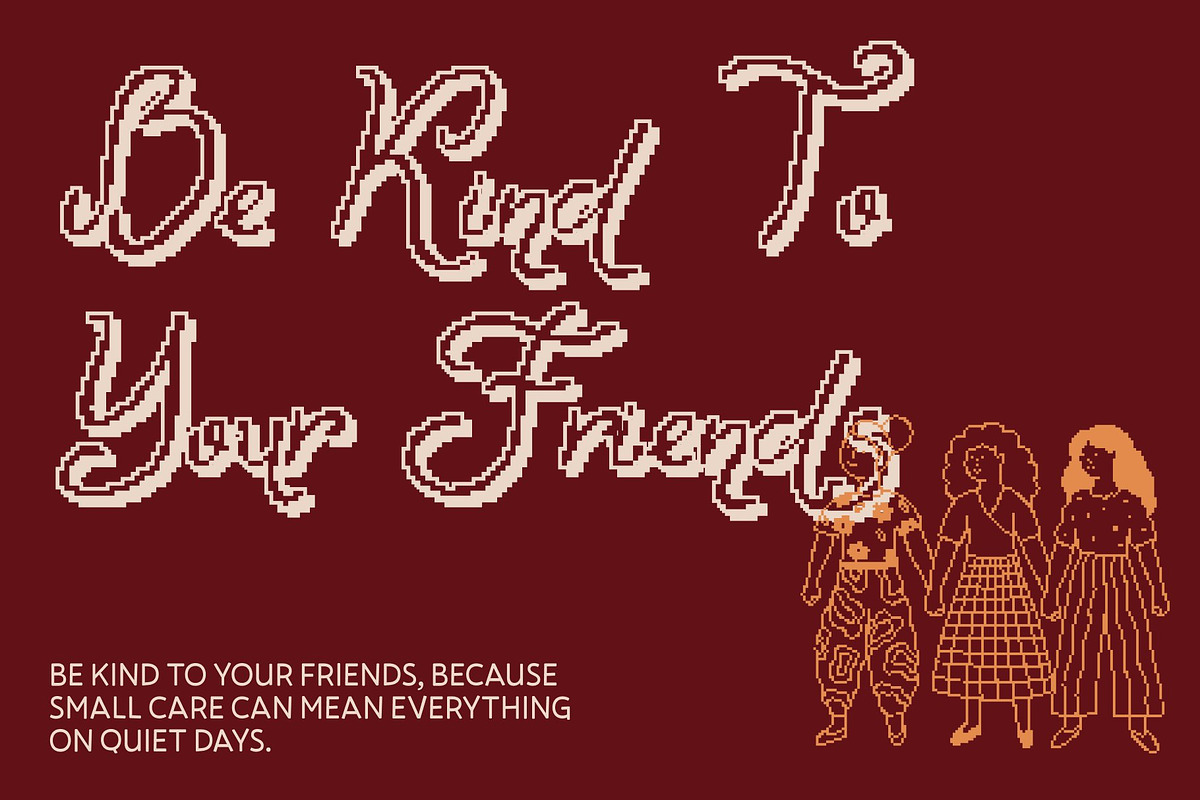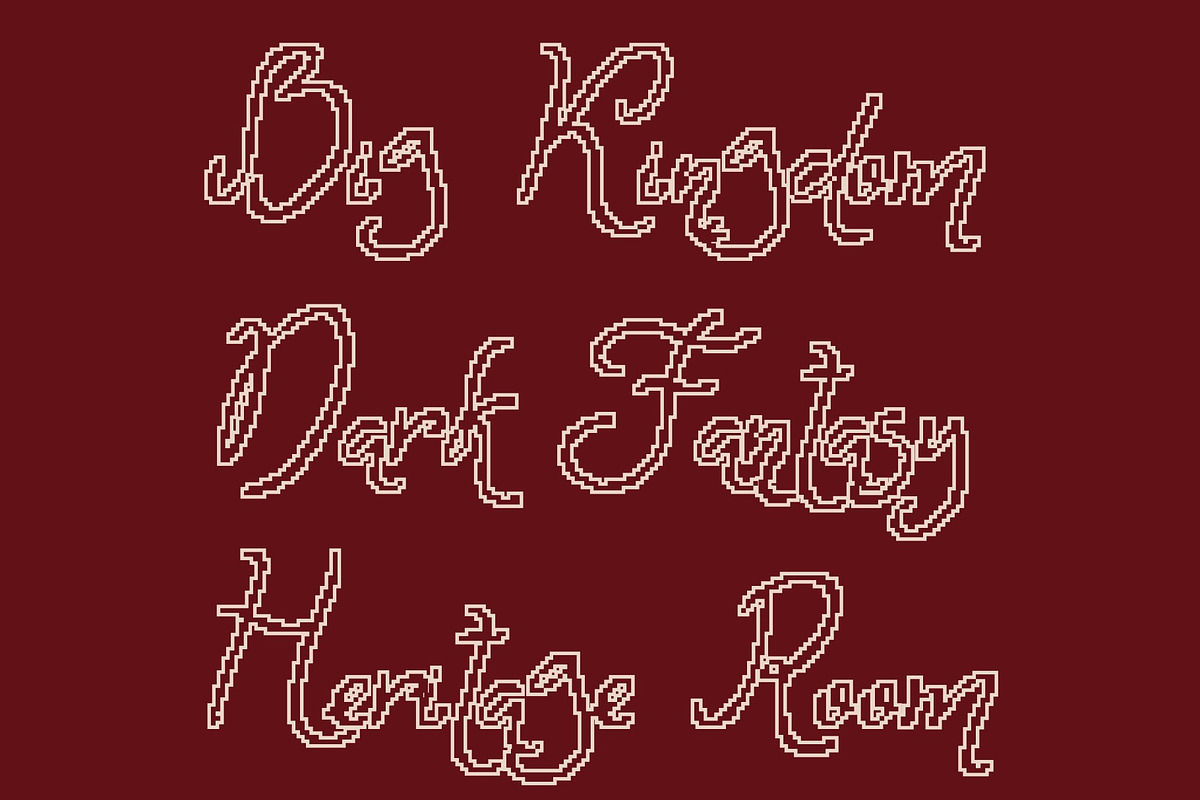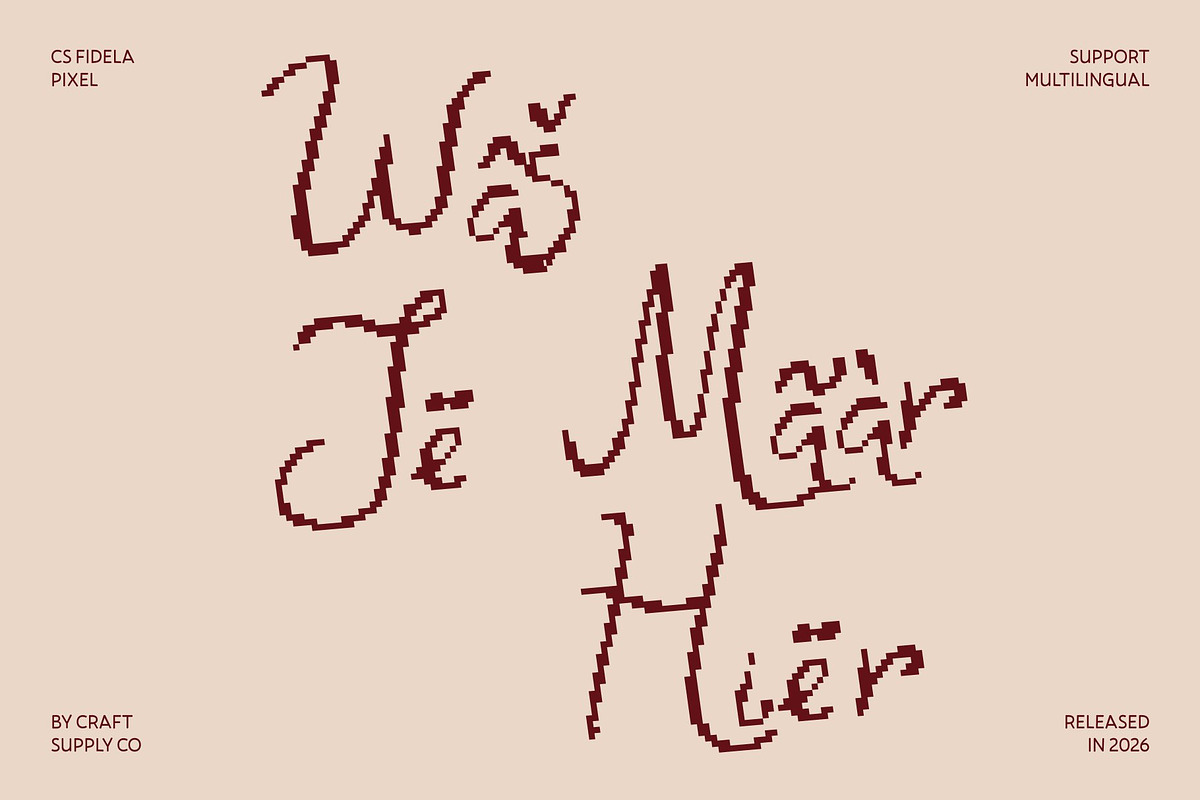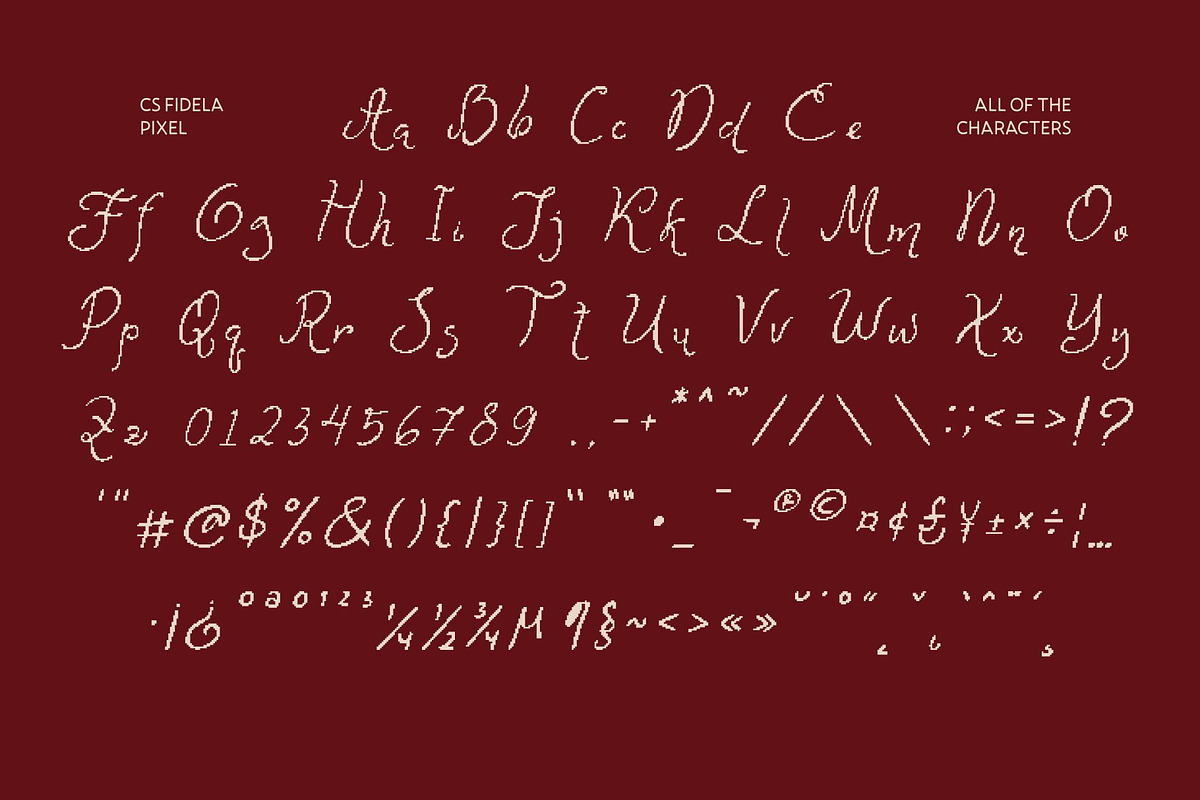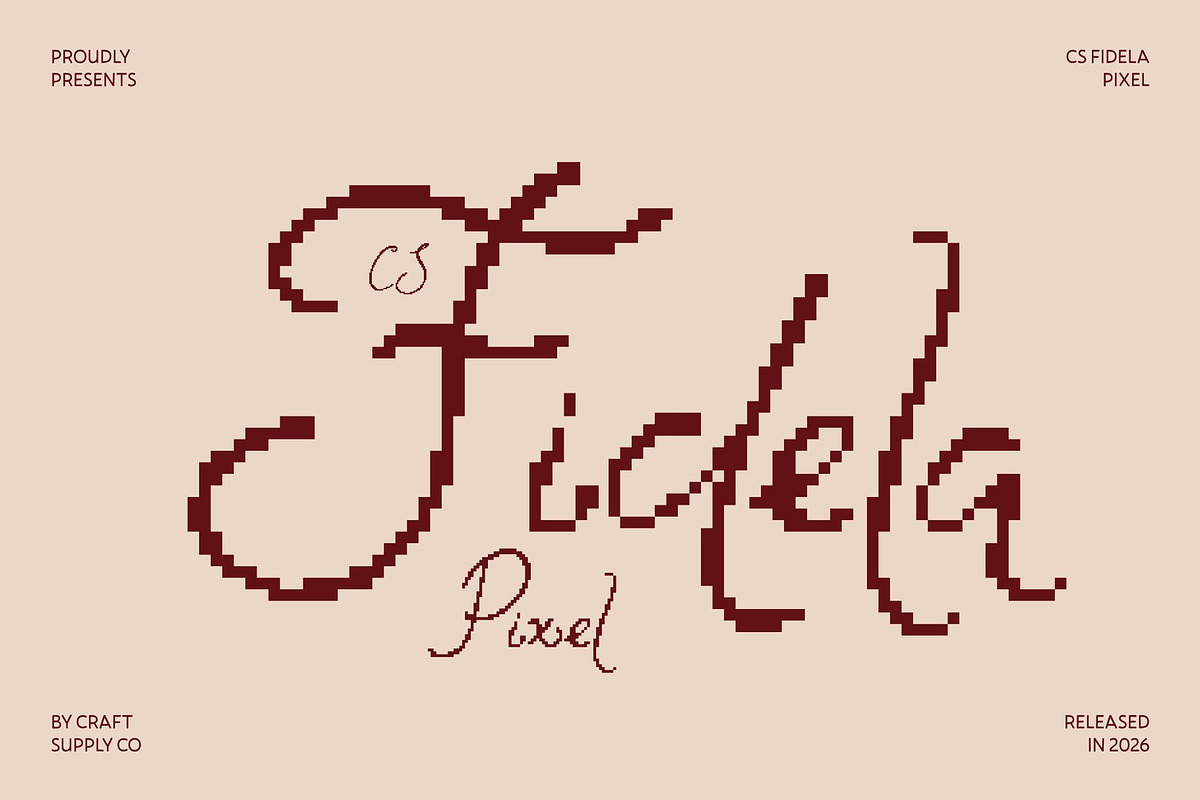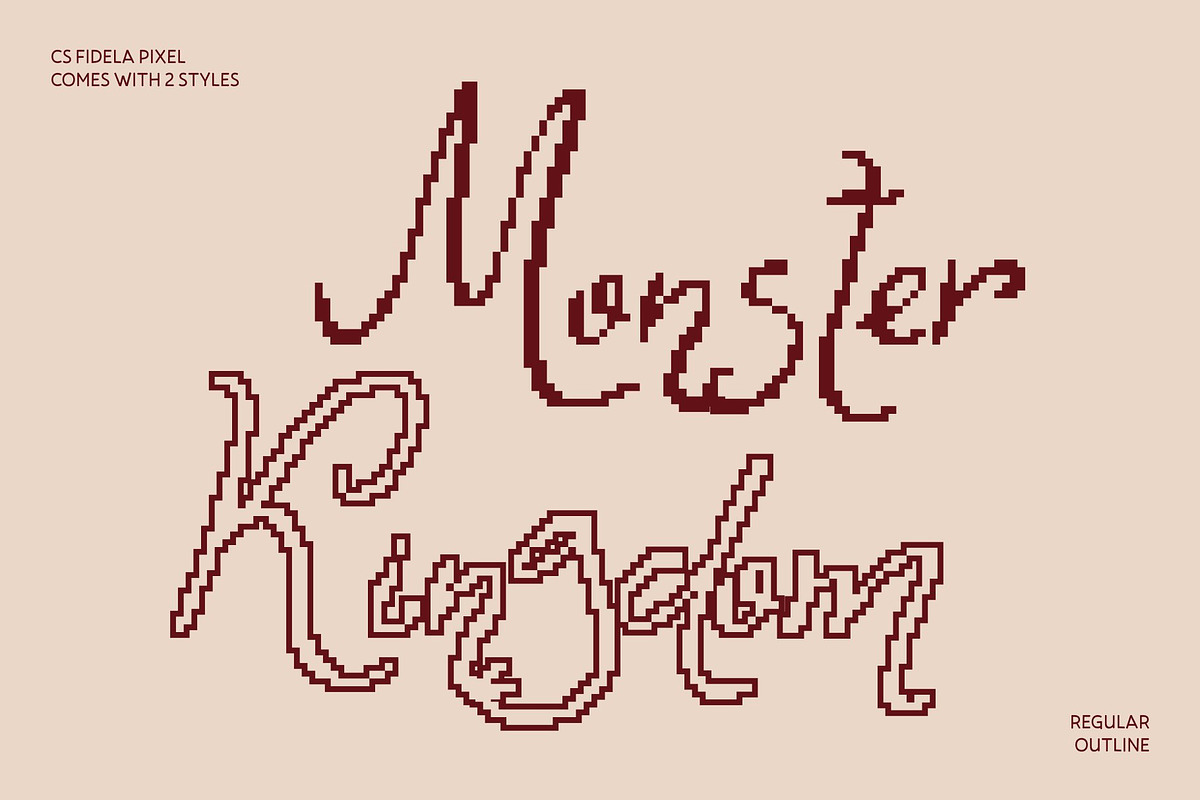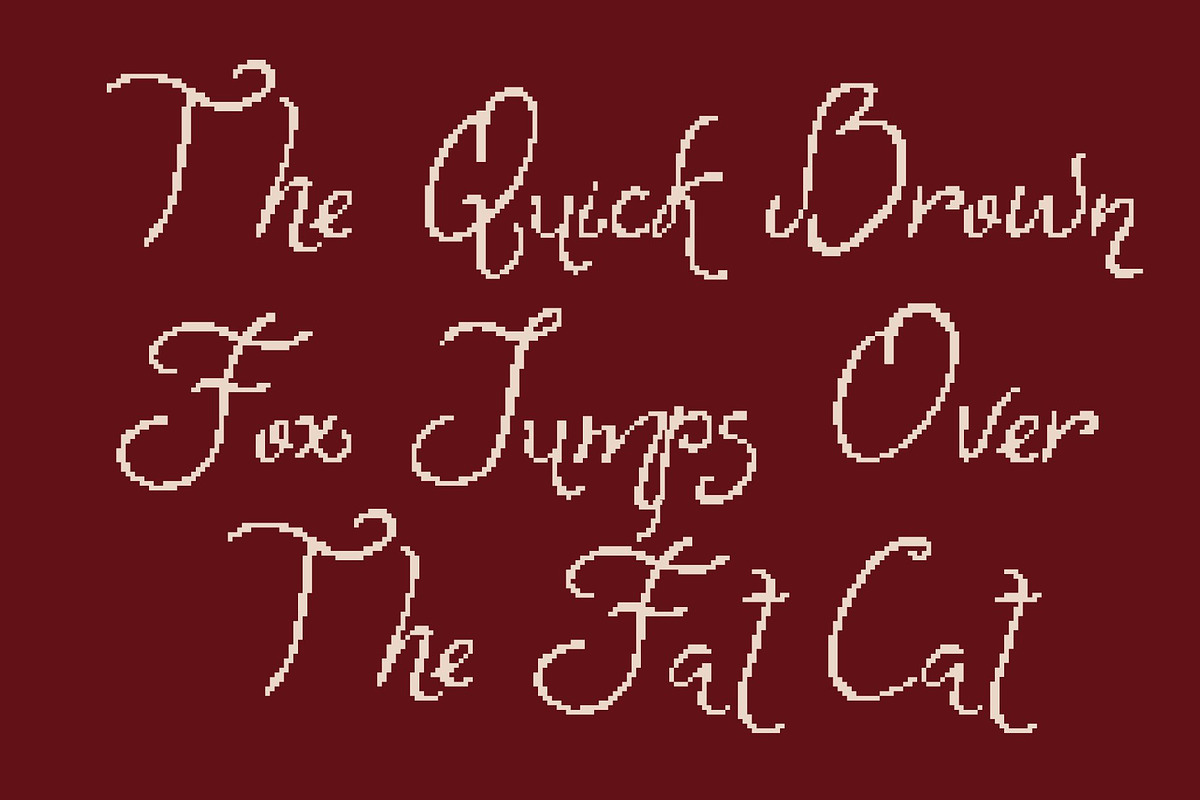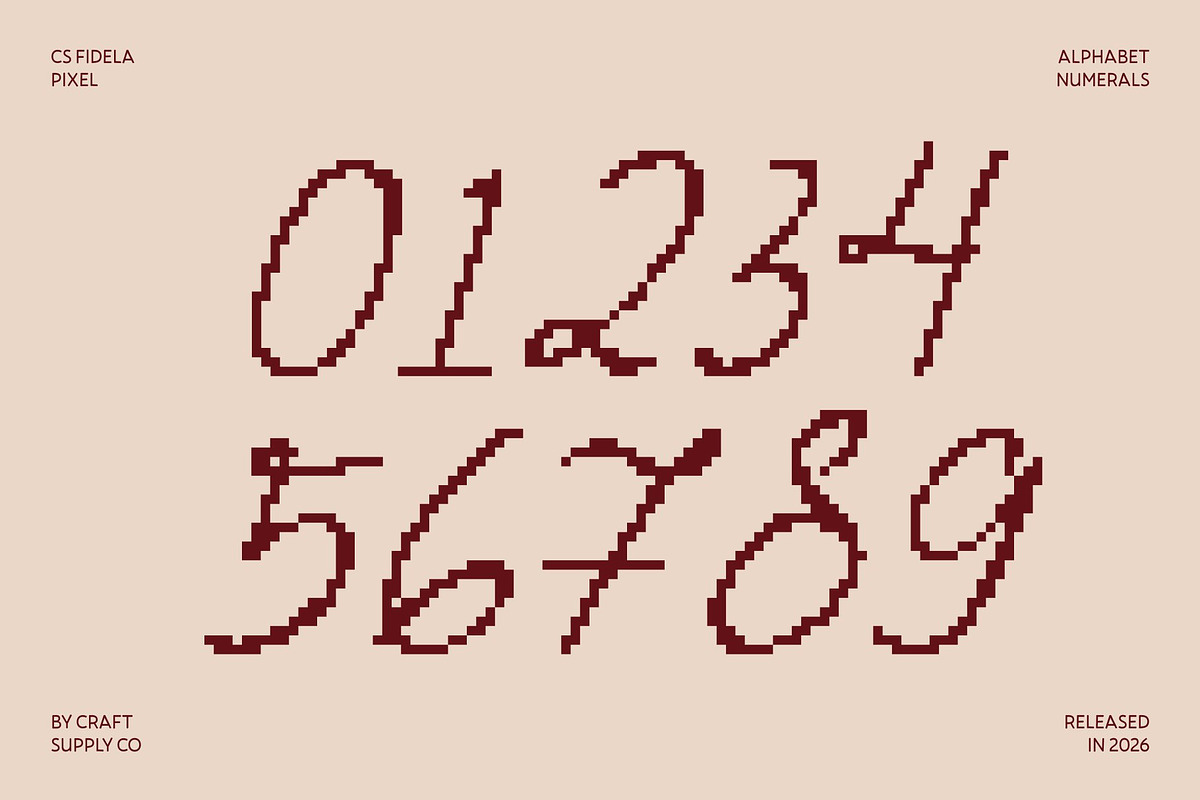
CS Fidela Pixel
CS Fidela Pixel – Whimsical Script Font Full of Cheer and Charm
Playful Script Style with Pixel Lighthearted Energy This is a whimsical script font designed to spread joy, movement, and creativity through every letter. Its playful curves and flowing strokes are reimagined in a pixel style, creating a lively handwritten look with a fun digital twist. The result feels cheerful, chic, and full of personality perfect for designs that want to feel friendly and imaginative.
Expressive Curves with Creative Pixel Character Each character is crafted with smooth curves, gentle loops, and a rhythmic flow that feels natural and spontaneous. The pixel construction adds a charming retro-digital texture, making the font feel alive and visually engaging. This balance of softness and structure gives your text a unique, eye-catching presence.
Perfect for Festive, Fun, and Digital Designs This font shines in festive and colorful projects such as birthday invitations, party posters, kids’ designs, and playful branding. Its cheerful script style pairs beautifully with bright colors, illustrations, and decorative layouts, while the pixel look makes it especially appealing for digital or retro-inspired visuals.
Versatile Charm with Retro-Tech Appeal Despite its lighthearted nature, this font is highly versatile. Use it for logos, quotes, packaging, social media graphics, or fantasy-themed designs. With its blend of whimsical elegance and pixel charm, this font delivers a memorable style that feels joyful, creative, and perfectly suited for both modern digital media and nostalgic old-technology aesthetics.